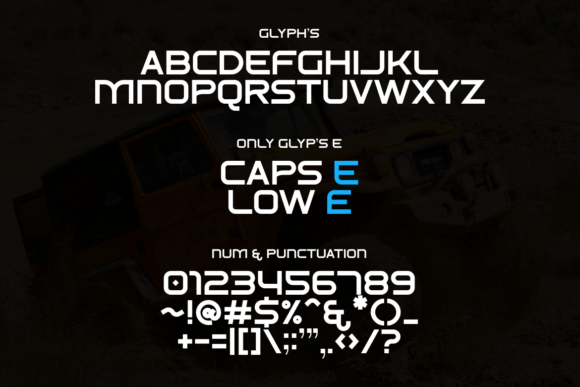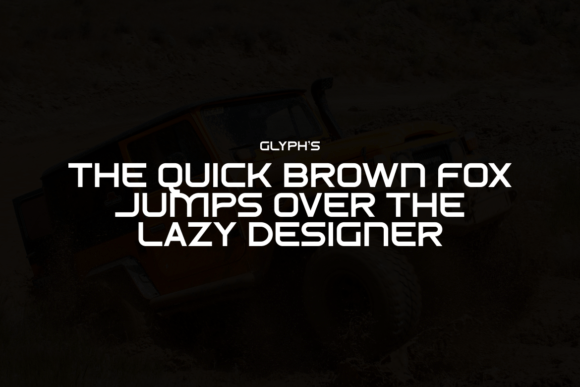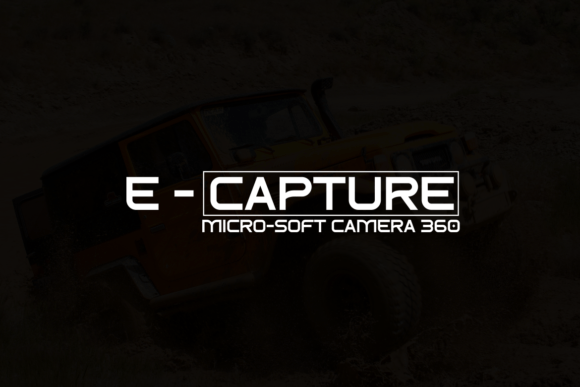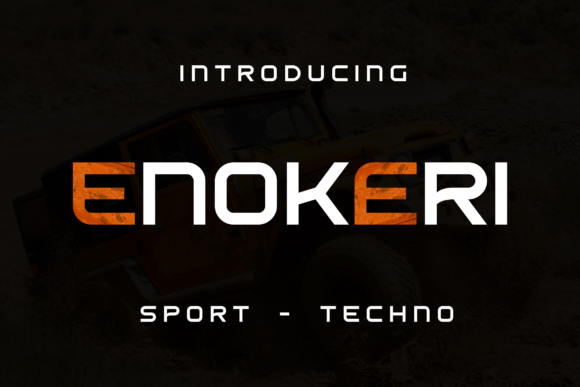
Unleash the Power of Enokeri Font: Where Technology Meets Design
In the realm of typography, few fonts have managed to capture the essence of technological advancements and dynamic style as effectively as the Enokeri font. This masterfully crafted typeface combines the vivaciousness of techno sport aesthetics with the precision of camera technology, making it an exquisite choice for designers and crafters looking to portray intricate tech lingo or lens specifications.
The Genesis of Enokeri: A Blend of Speed and Focus
Enokeri is more than just a font; it’s an experience. Born out of the need to represent the duality of speed and focus in a technologically progressive world, Enokeri embodies the perfect marriage of dynamic style and advanced design. Its unique interplay of techno sport aesthetics and camera technology precision makes it an ideal choice for cutting-edge technology contexts and camera lens wizardry.
Design Characteristics: A Deep Dive into Enokeri’s Features
Enokeri’s design is characterized by its sleek lines, futuristic look, and a hint of sporty vibe. Each letter is crafted to convey a sense of movement and precision, making it perfect for headlines, titles, and any text that requires a modern and edgy look. The font’s versatility is one of its strongest points, allowing it to be used in a variety of contexts, from digital interfaces to print media.
Key Features of Enokeri Font:
- Dynamic Style: Enokeri’s design is inspired by the fast-paced world of technology and sports, making it perfect for projects that require a sense of dynamism and energy.
- Precision Craftsmanship: The font’s precision is reminiscent of camera technology, ensuring that every detail, no matter how small, is meticulously crafted.
- Versatility: Enokeri can be used in a wide range of applications, from tech product branding to sports equipment design, and even in digital media such as websites and mobile apps.
- Legibility: Despite its futuristic and edgy look, Enokeri maintains a high level of legibility, making it suitable for both headlines and body text.
Applications of Enokeri: Bringing Technology to Life
The applications of Enokeri are vast and varied. Designers and crafters can use Enokeri to:
- Create stunning tech product branding that stands out in a crowded market.
- Design captivating sports equipment logos that convey speed, agility, and performance.
- Develop futuristic digital interfaces that are both functional and aesthetically pleasing.
- Enhance camera and lens product specifications with a font that speaks to precision and innovation.
Why Choose Enokeri?
In a world where design and technology are increasingly intertwined, Enokeri offers a unique solution for designers and crafters looking to push the boundaries of creativity. By choosing Enokeri, you are not just selecting a font; you are embracing a design philosophy that celebrates innovation, precision, and dynamism.
Enokeri is more than just a font; it’s a statement. It’s a declaration of your commitment to design excellence and technological innovation. Whether you’re a seasoned designer or a crafter looking to make a mark, Enokeri offers the perfect blend of style, precision, and versatility. Unveil the power of Enokeri in your next project and experience the future of design today.